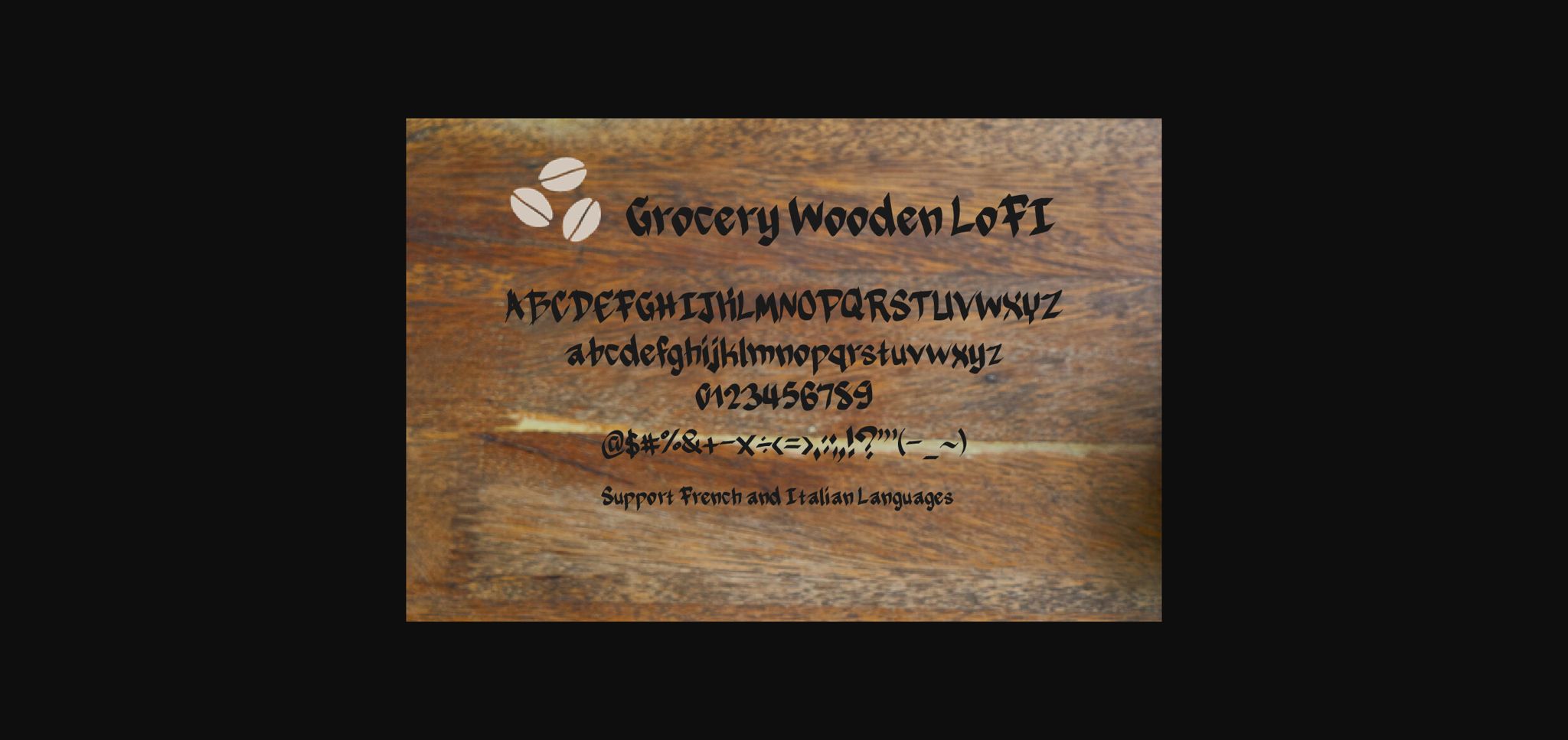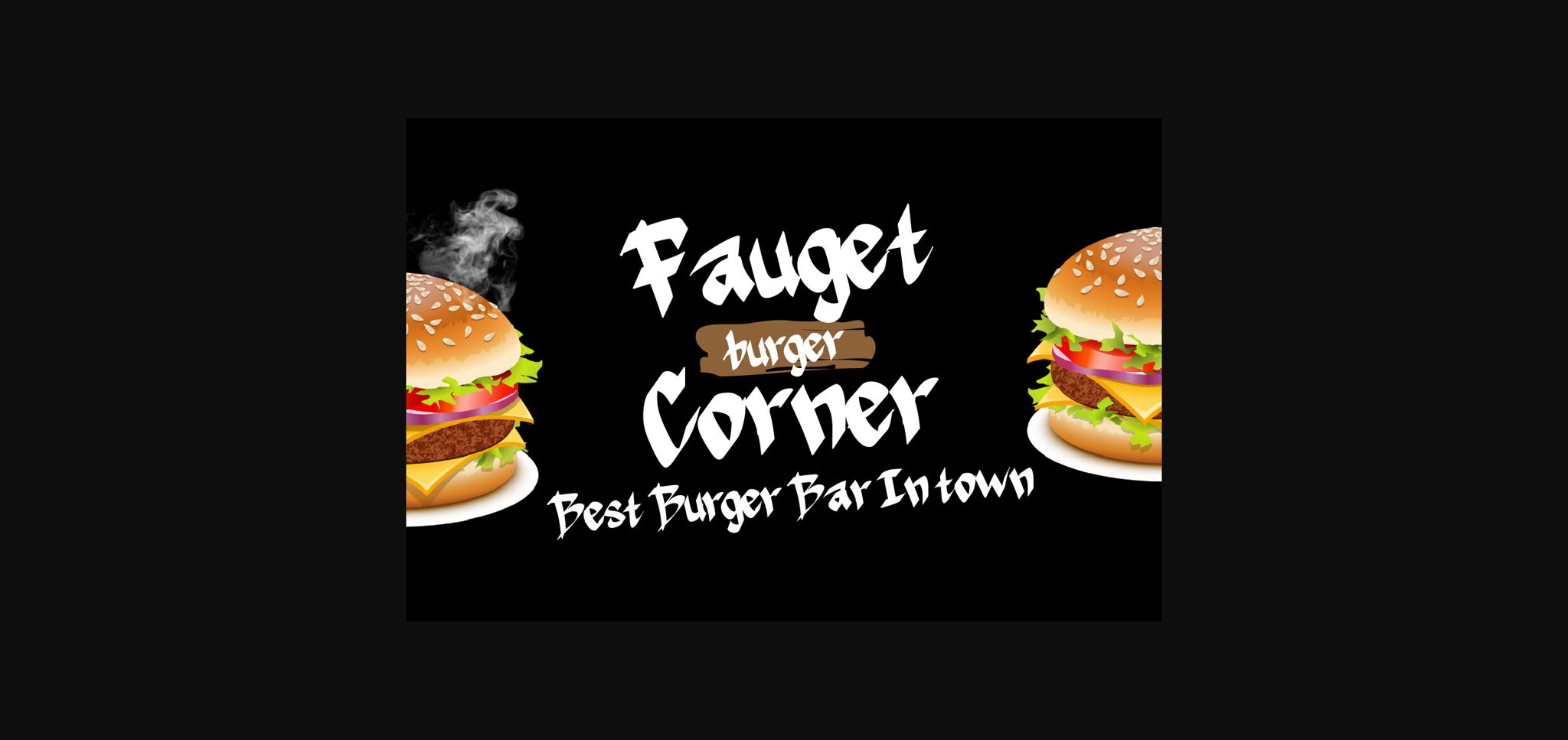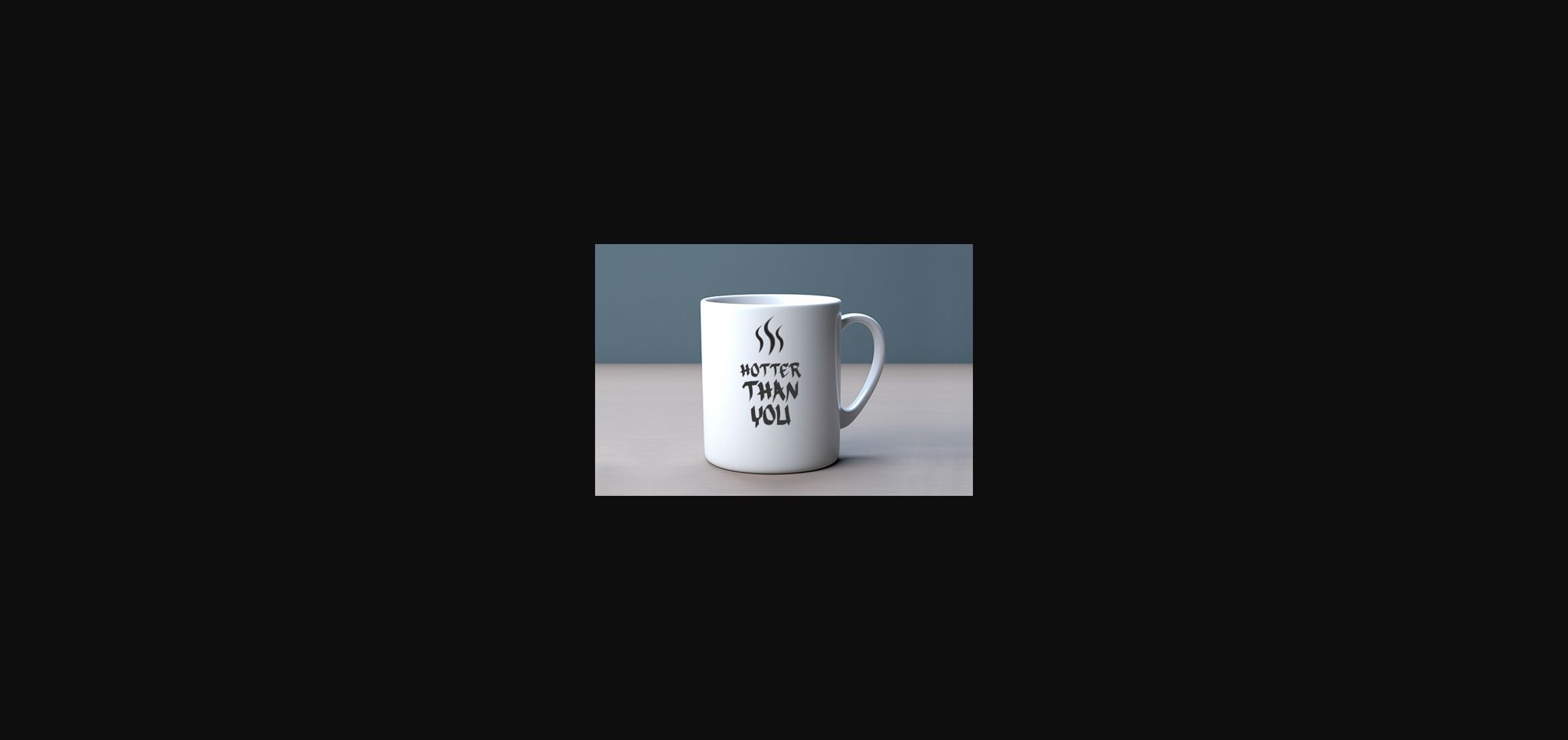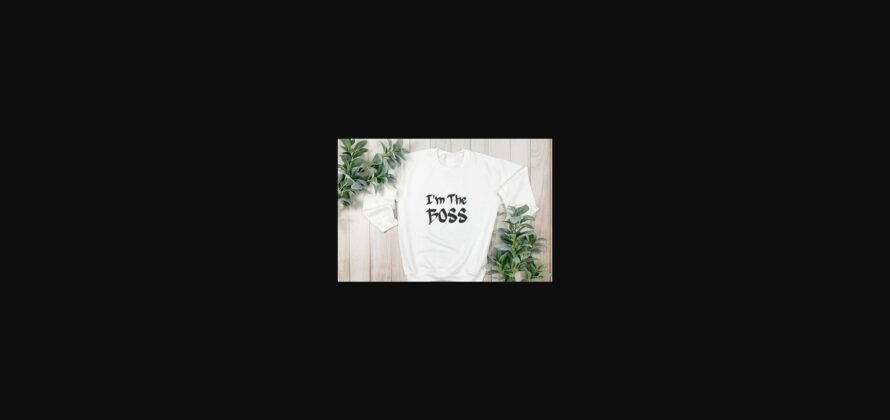
About Grocery Wooden Lofi Font
Grocery Wooden LoFI is a bold and modern sans serif font style. It would be awesome to your fun projects or posters, headlines, branding and packaging, back to school, party decoration, invitations, Fall, Halloween, blogs, clothing, social media posts and so much more!!